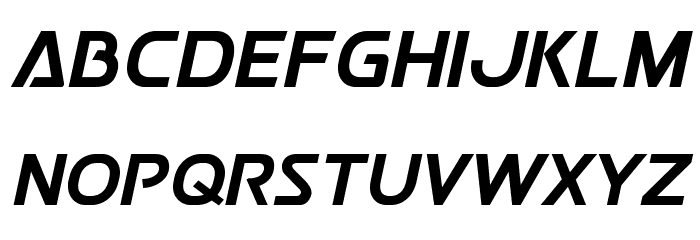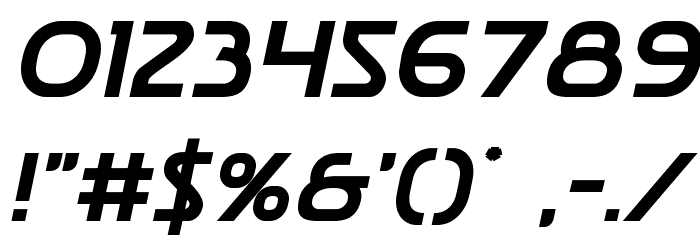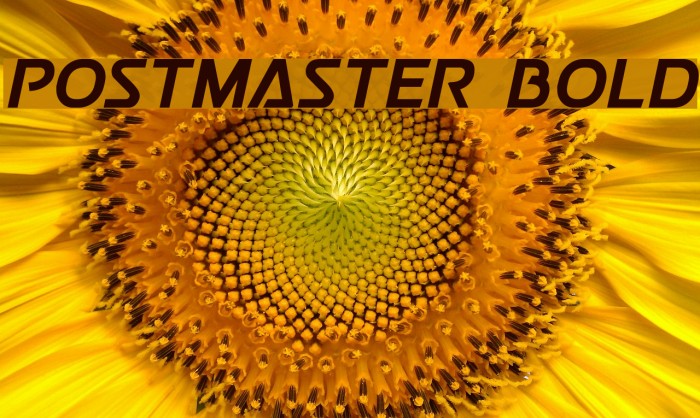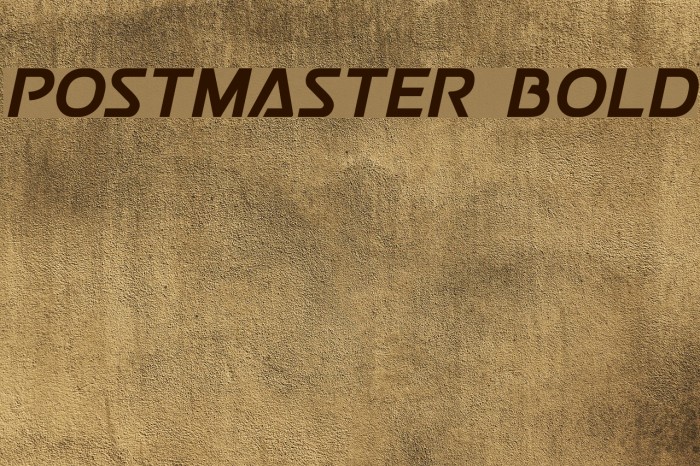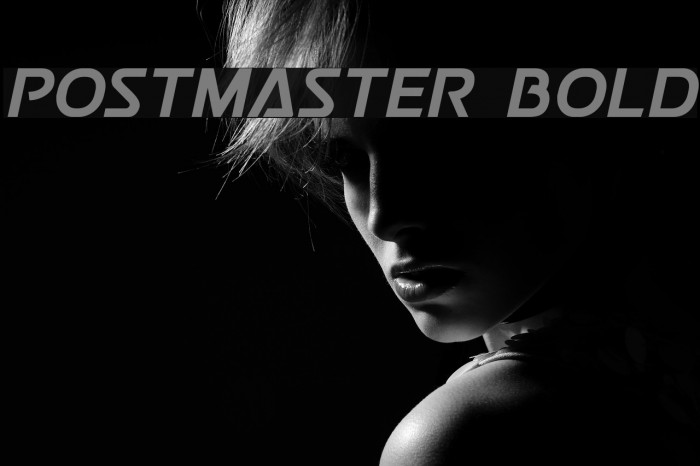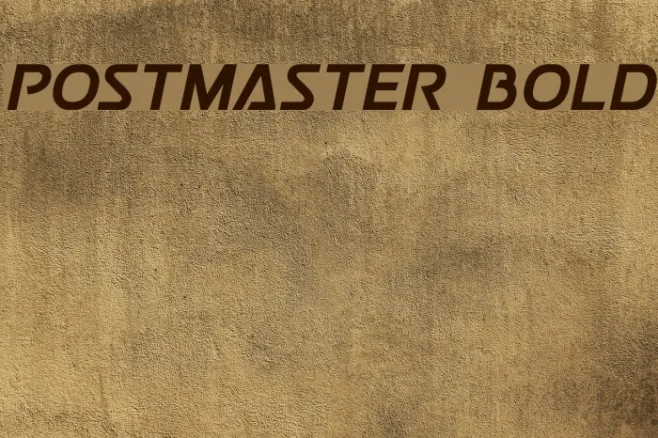
Postmaster Bold Font
This font exhibits a bold and dynamic style with a strong presence. The characters are slightly slanted, giving a sense of motion and energy. The strokes are thick and consistent, providing a robust appearance. The uppercase and lowercase letters maintain a uniform width, contributing to a cohesive look. The numerals are clear and easily distinguishable, while the special characters are well-integrated, ensuring versatility in various applications. The overall design is modern and sleek, making it suitable for impactful headlines and branding.
A bold, slanted font with a modern and dynamic style.